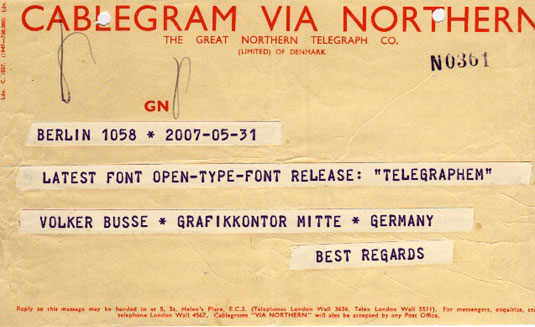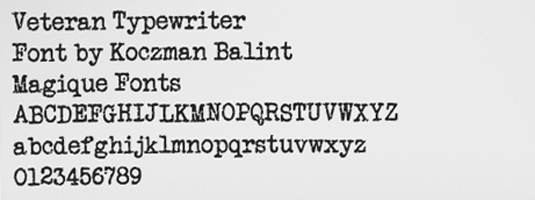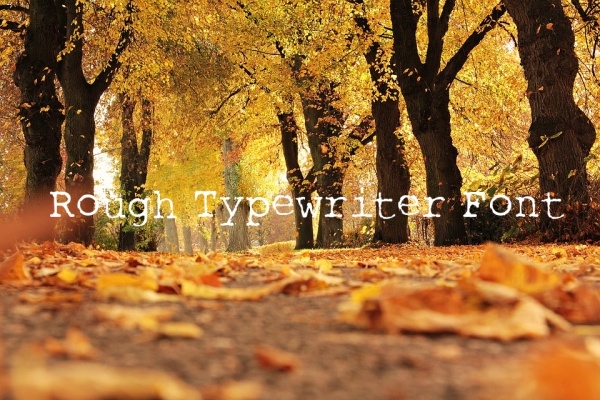
26 of the best free typewriter fonts
The best free typewriter fonts can be just the ticket for adding a vintage feel to all kinds of designs. Typewriter typefaces evoke images of the past, of reporters hammering away in exotic locations to efficient secretaries taking down dictation in Mad Men-esque offices. The great news is there are lots of free typewriter fonts out there. Not all of them are very good, but we've picked out our favourites to save you some time.
The free typewriter fonts below cover a range of distinctive looks and feels, from really rough and grungy typewriter type to cleaner, more modern options that prioritise legibility. We hope you'll be able to find what you need for your project (if you have some budget available, we also have a pick of paid-for typewriter fonts).
The best free typewriter fonts
01. Orange Typewriter
The creator of Orange Typewriter, Lukas Krakora, has various typewriter fonts, plenty of which are worth looking at it, but Orange Typewriter is our favourite. It has extra detail around the letters, which makes it stand out from the rest. This font is free for non-commercial use, but you can write to the designer to get information about commercial licence cost.
02. Harting
We love the wonky feel of the letters in Harting, which gets the typewriter feel by looking in places like it is running out of ink. This free typewriter font is free for personal use in your projects and was created by David Rakowski.
03. TT2020
Described by creator Fredrick Brennan, as "an advanced, open source, hyperrealistic, multilingual typewriter font for a new decade", TT2020 is a modern free typewriter fonts that tackles the issue of authenticity head on. As Brennan points out, in the days of analogue typewriters, damaged and misaligned letters meant that they were incapable of producing the same output every time. The regularity of digital fonts runs at odds to this, a problem he spotted on supposedly typewritten documents featured in the movies Joker and The Irishman.
His solution is pretty technical: if you're interested you can delve into it here. Most importantly, TT2020 is free and open source, can be used in both commercial and personal projects and comes in a variety of weights and styles.
04. Rough Typewriter Font
Rough Typewriter Font does exactly what it says on the tin. It's one of those free typewriter fonts that's a bit rough around the edges; great for times you want a touch of stylish imperfection. It comes in four versions including bold and italic and is free for personal use, but requires a commercial licence.
05. Silvery Tarjey Font
A slightly softer aesthetic, rounded and verging on bubble-like in places, this is one of the most standout free typewiter fonts available today. Created for a personal project by Cumberland Fontworks, it's free for personal use and you can contact the author if you'd like to discuss using it for wider distribution.
06. Conspiracy
This font makes us imagine secret government files full of covertly written letters about Area 51. Slightly quirky and lots of fun, this is one of the most popular free typewriter fonts around, amassing over 71,000 downloads to date.
07. Stampwriter-Kit
Stampwriter-Kit was created from a typewriter style stamp kit and has that lovely smudgy-stampy feel. One of the most authentic designs we've seen among the pantheon of free typewriter fonts available today, it comes in upper-case letters only, for that perfect 'branded' stamp effect.
08. RM Typerighter old font
RM Typerighter old font is one of those free typewriter fonts that looks old and worn out... in the best possible way. We love its sketch-like quality, which brings an artistic feel to the clogged up aesthetic. It comes in a complete set of alphabetical and numercial characters and is free for both commercial and personal use.
09. Trashtype
Trashtype is one of those free typewriter fonts that emulates Courier, but with a distressed twist. Beautifully eroded, it looks awesome on textured paper and has a weathered feel to it. The 179 characters include a Latin supplement. It's free for personal use, but please do contact designer David Kerkhoff if you want to use if commercially.
10. Gabriele
Named after a popular series of typewriters in postwar Germany, Gabriele has a distinctive texture that evokes old typewriter ribbons. This monospaced font requires no kerning, and it's free for commercial use.